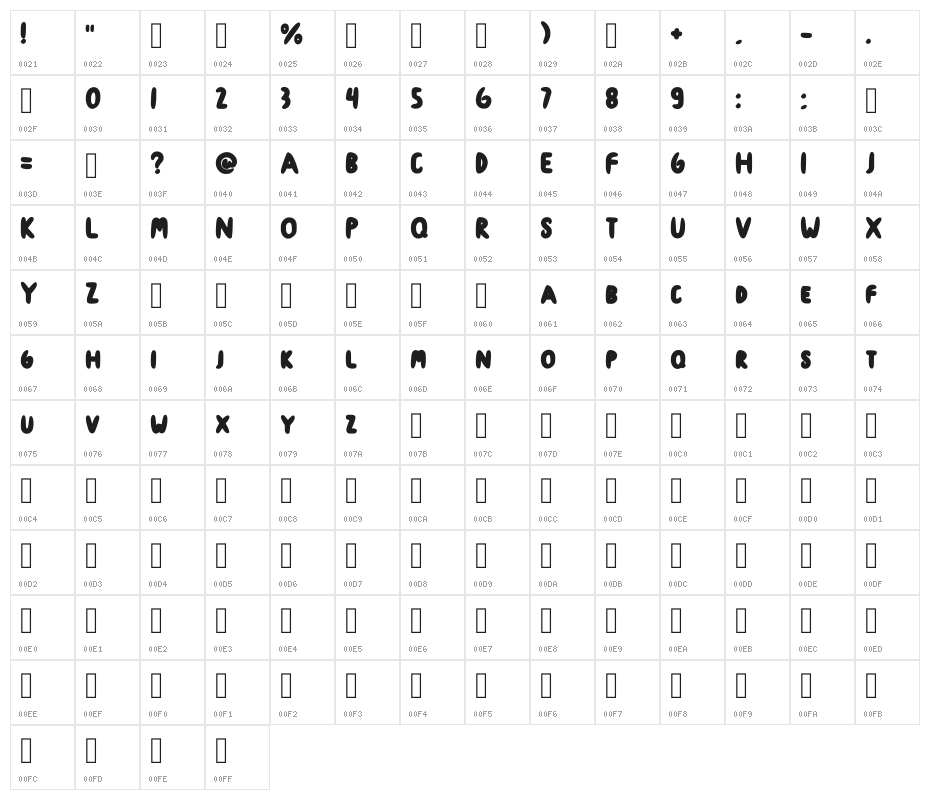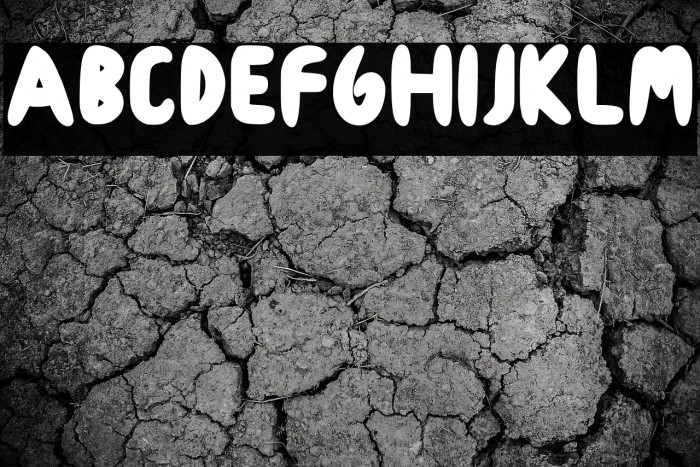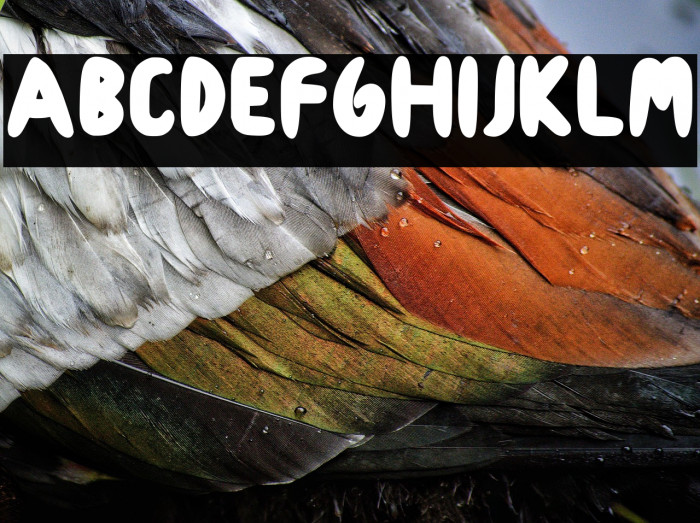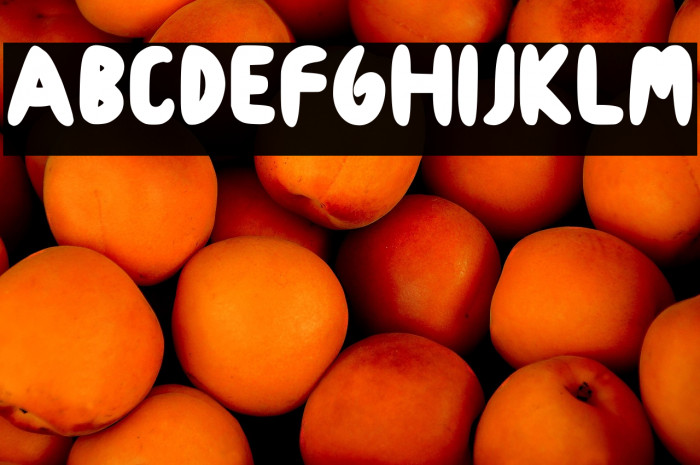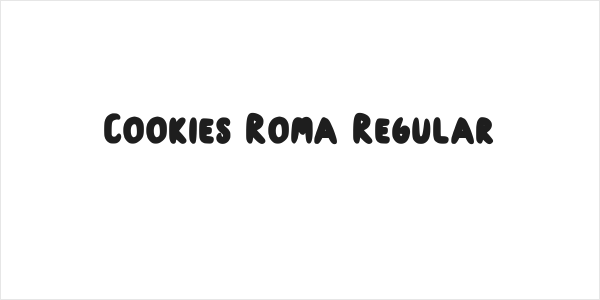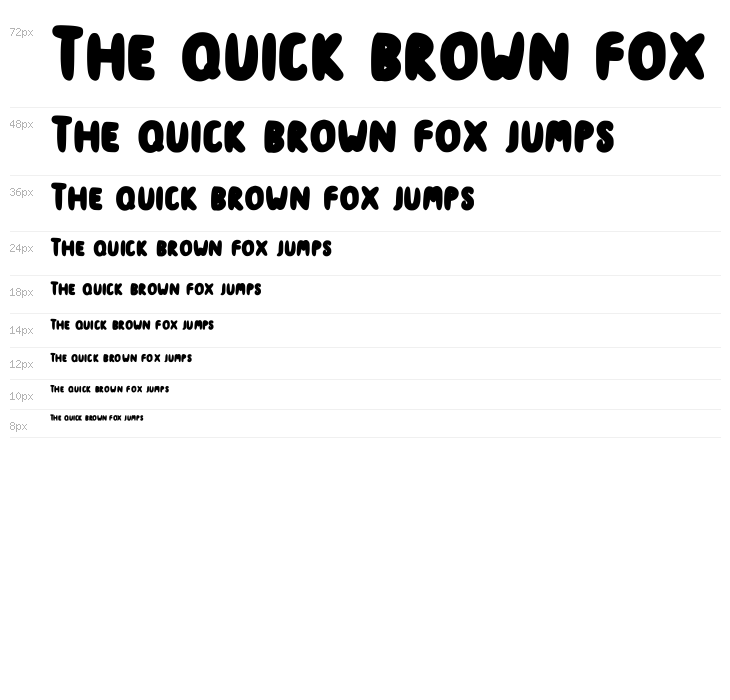
Cookies Roma Regular Font
Cookies Roma Regular Description
This playful and bold font features rounded, thick strokes that give it a friendly and approachable appearance. The characters are slightly condensed, with a consistent weight throughout, making it ideal for creating a cohesive and unified look. The font's whimsical style is evident in its soft curves and smooth edges, which add a touch of fun and creativity to any design. Its legibility is maintained despite the boldness, making it suitable for various applications where a lively and engaging typeface is desired.
| Width | Condensed |
| Overall Style | Playful |